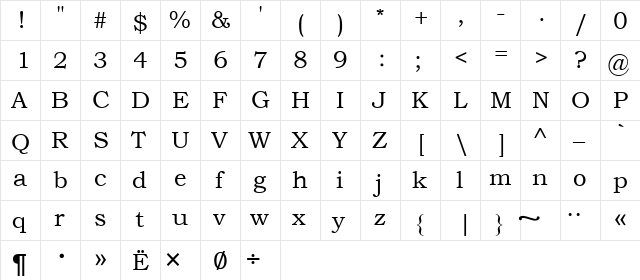
Menaion Medieval Regular
| Foundry | LCAPR, UdSU |
| Designer | V.Baranov |
Design Context for Menaion Medieval Typeface
Menaion Medieval takes a measured approach to typography — its balanced proportions and neutral character make it a reliable workhorse for both digital and print work.